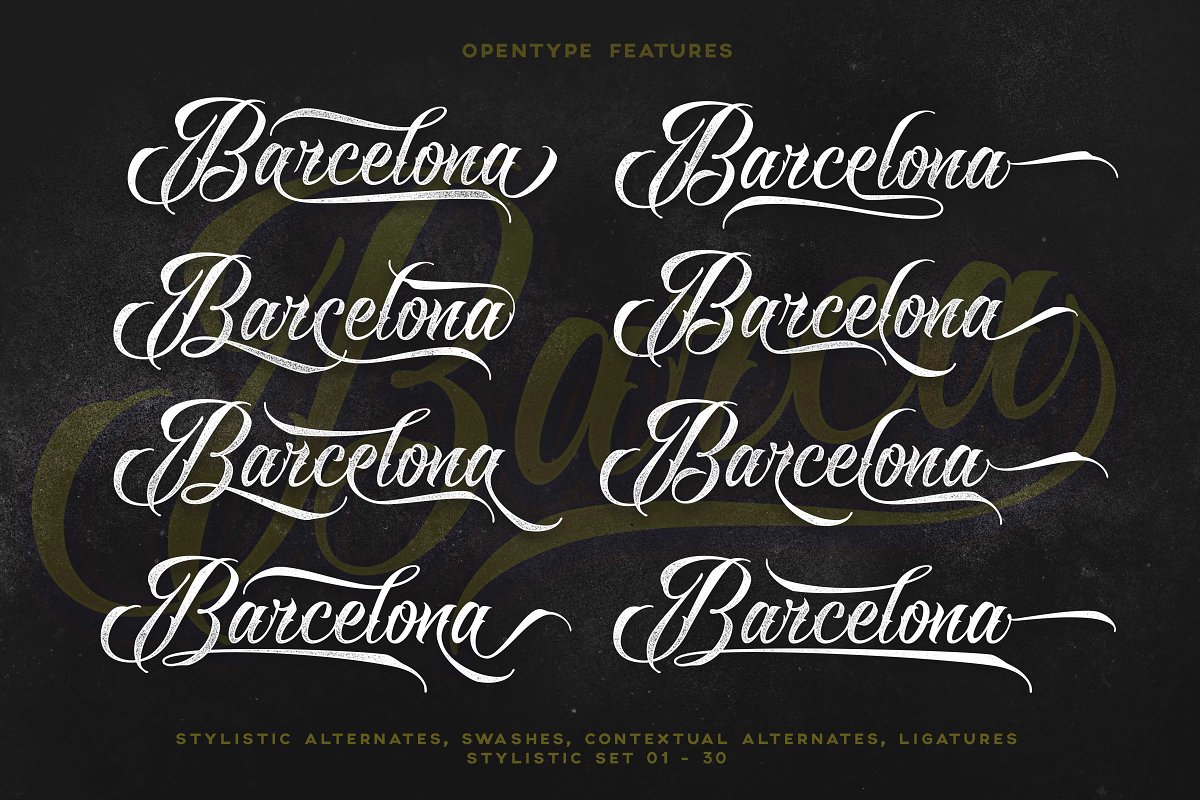
About the Raven Script Font
Very inspired from The Raven Wings, 623 Glyphs with total 445 Alternates Glyphs, Support Stylistic Alternates, Contextual Alternates, Swashes/Swooshes Alternates, Standard Ligatures and Stylistic Set ( SS01-SS30)